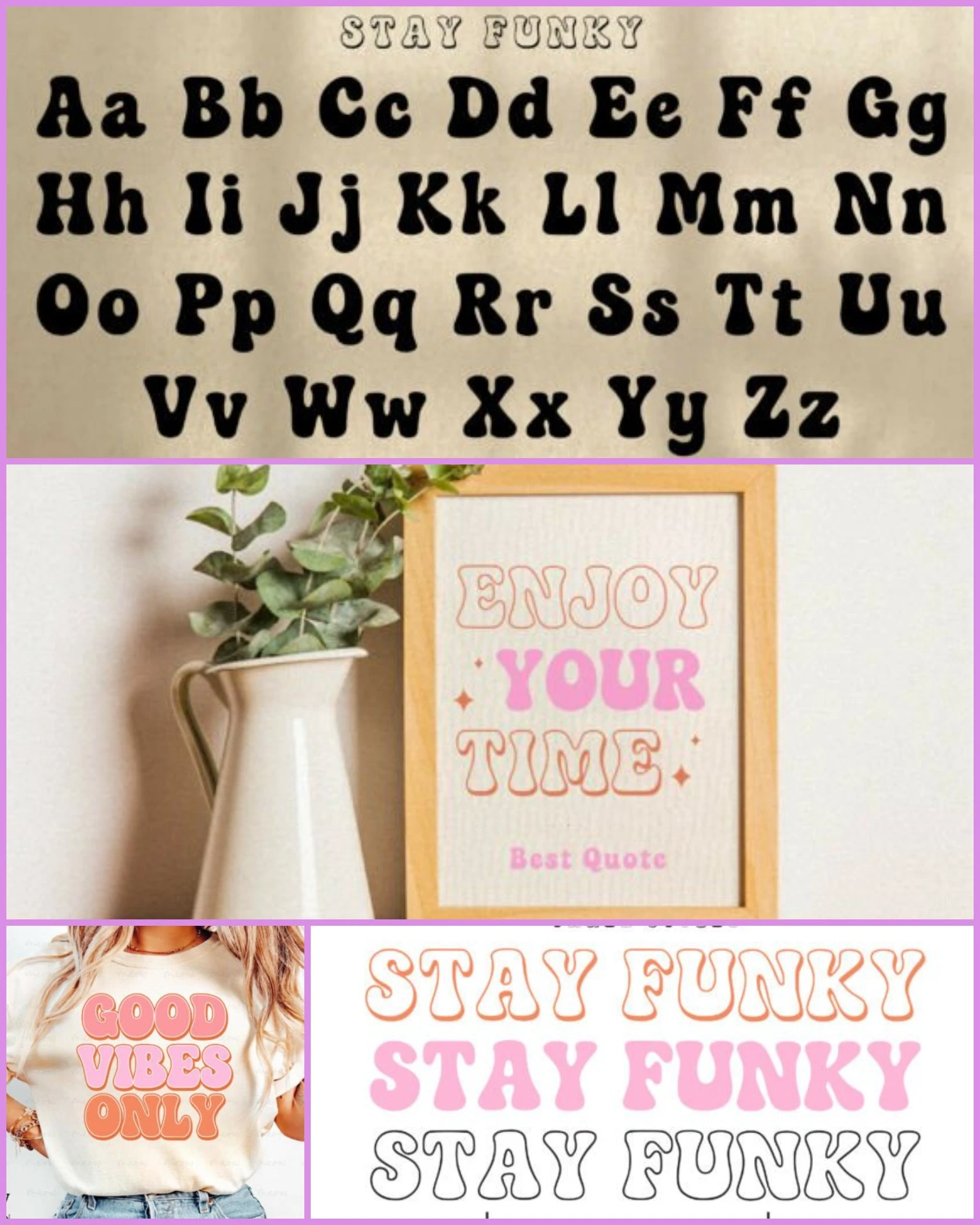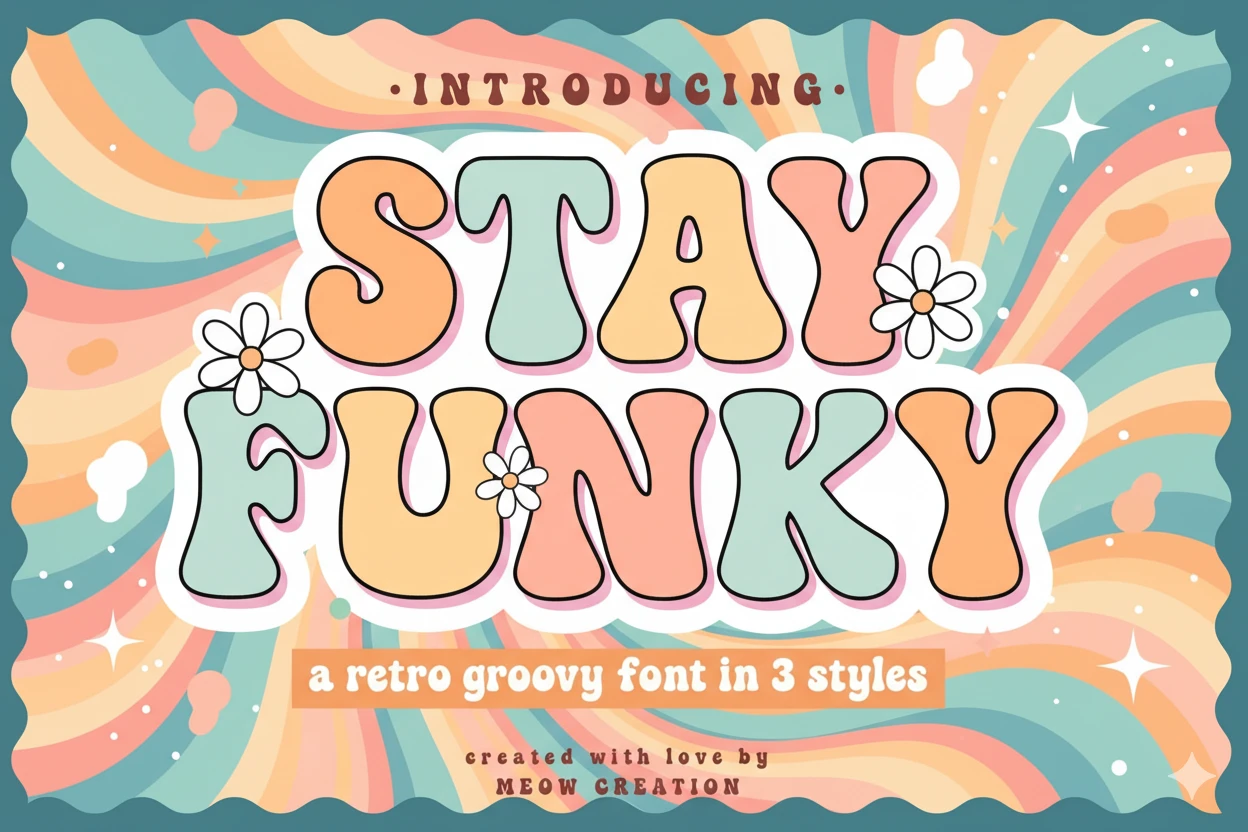
Step back into the colorful 70s with Stay Funky Font, a bold and playful retro groovy typeface designed to bring fun and nostalgia to your projects. Featuring three unique styles — Regular, Outline, and Shadow — this bubbly and curvy font gives your designs a cheerful, vintage twist.
Perfect for Cricut and Silhouette users, Stay Funky works beautifully for T-shirts, posters, stickers, quotes, album covers, and social media graphics. Its funky shapes and bubble letters make it ideal for branding, festival designs, and retro-inspired art.
With PUA encoding and smooth letterforms, this typeface is easy to use in all design programs like Canva, Procreate, or Illustrator. Add personality and charm to your next creative project with the Stay Funky Font — your go-to choice for groovy, boho, and psychedelic design styles.